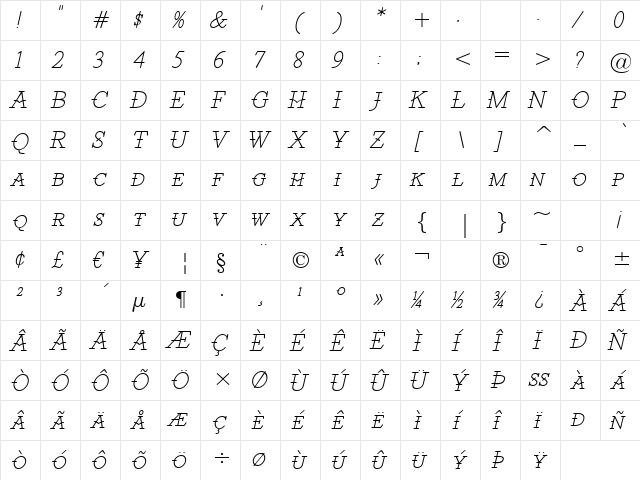
Santiago BTN Light Oblique Font Preview
Design Context for Santiago BTN Light Typeface
Santiago BTN Light takes a measured approach to typography — its balanced proportions and neutral character make it a reliable workhorse for both digital and print work. Its italic angle brings a sense of urgency and motion to the letterforms. Its slender proportions lend an understated elegance to any composition.
Pro Tip: Use Santiago BTN Light for emphasis, pull quotes, and subheadings where its slanted energy can add rhythm to the layout.